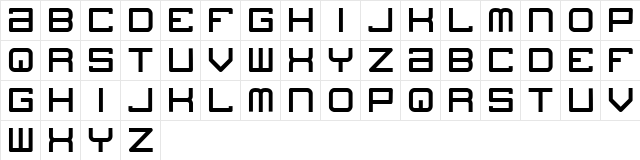
blogs Regular
Design Context for blogs Typeface
blogs offers clean, dependable letterforms without strong stylistic allegiance, making it a practical choice for designers who need flexibility.
Pro Tip: Use blogs in both headline and body roles to test its range before committing to a single application.